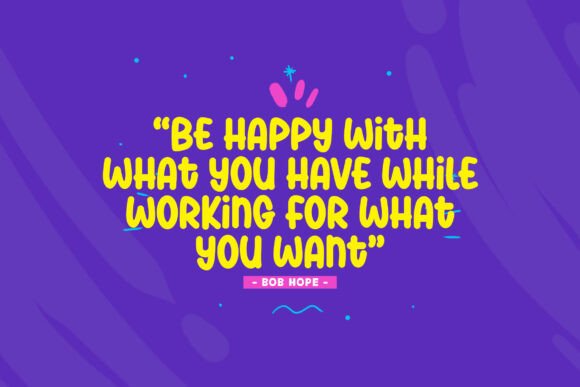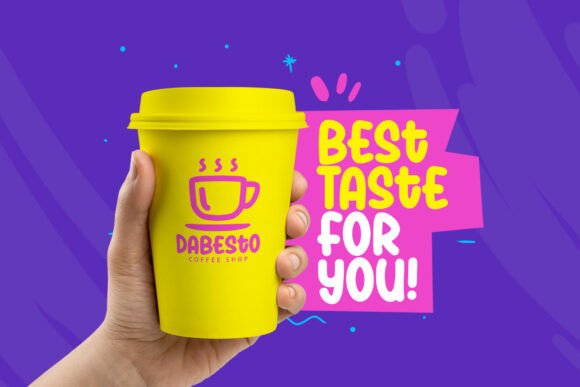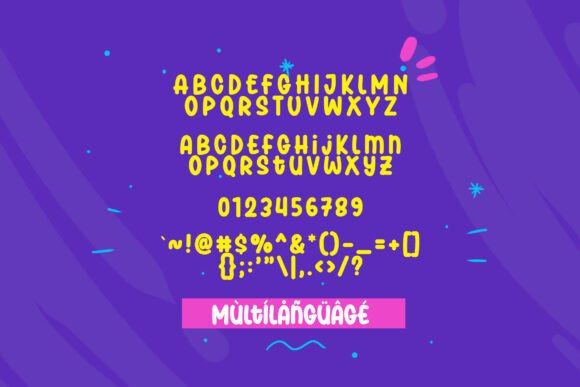
Introduction to Playfull Daily Font
Remember that moment when you’re brainstorming ideas for a new project, and suddenly, a spark of creativity hits you? The perfect font pops into your mind, and you can almost see the entire design unfold. For designers, this moment is priceless, and it’s exactly what the Playfull Daily Font is designed to evoke.
As a modern and cute display font, Playfull Daily Font is the ultimate design resource for creating eye-catching posters, logos, magazines, book covers, and banners. With its versatility and high-quality design, it’s the perfect addition to any creative project. Whether you’re working on a personal or professional project, this font is sure to bring a touch of magic to your design.
What sets Playfull Daily Font apart is its ability to work seamlessly with a transparent background, making it easy to use in a variety of design scenarios. Plus, it’s available for free download, making it an accessible resource for designers of all levels.
Key Features of Playfull Daily Font
- High-quality design resource with a transparent background, perfect for creative projects.
- Includes a range of font styles and weights, allowing for versatile use in various design contexts.
- Features a clean and modern design aesthetic, ideal for contemporary creative projects.
- Designed with high resolution in mind, ensuring crisp and clear typography in both print and digital applications.
Honest Review: Playfull Daily Font
As a designer, I’m always on the lookout for high-quality design resources to elevate my creative projects. The Playfull Daily Font is one such find that has caught my attention. Let’s dive into the details.
- ✨ Unique and playful style that’s perfect for modern designs
- ✨ High-quality font with a clear, legible texture
- ✨ Supports a transparent background, giving me flexibility in design
- ⚠️ Limited character set, which might not be suitable for longer texts
- ⚠️ May not be ideal for designs requiring a more formal or professional tone
Overall, I’m impressed with the Playfull Daily Font. It’s a great addition to any designer’s toolkit, perfect for creative projects that require a modern, playful touch. While it may have some limitations, the font’s unique style and high-quality design make it a valuable resource.
The Playfull Daily Font is perfect for any creative project that requires a playful and modern touch. Some common use cases include social media graphics, blog posts, and marketing materials. You can also use the font to add a personal touch to your wedding invitations or party decorations.